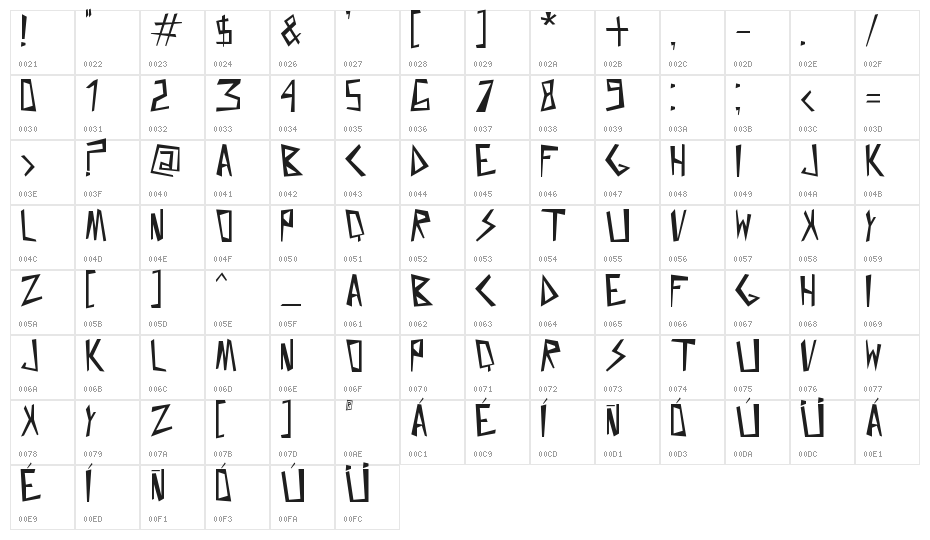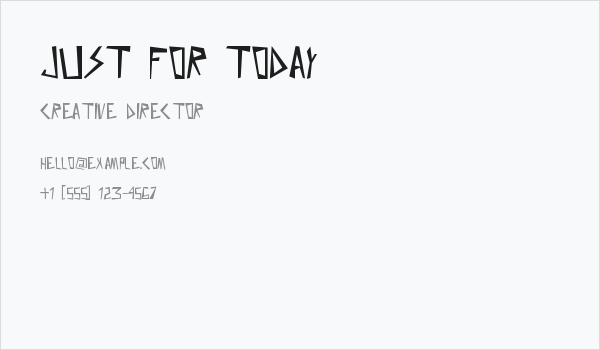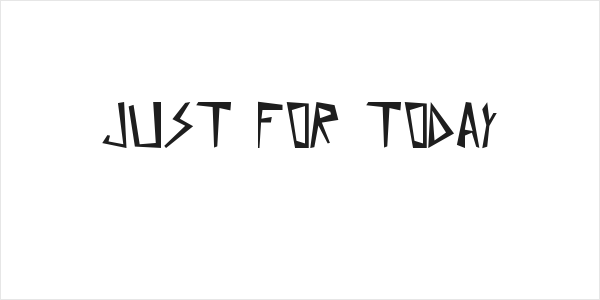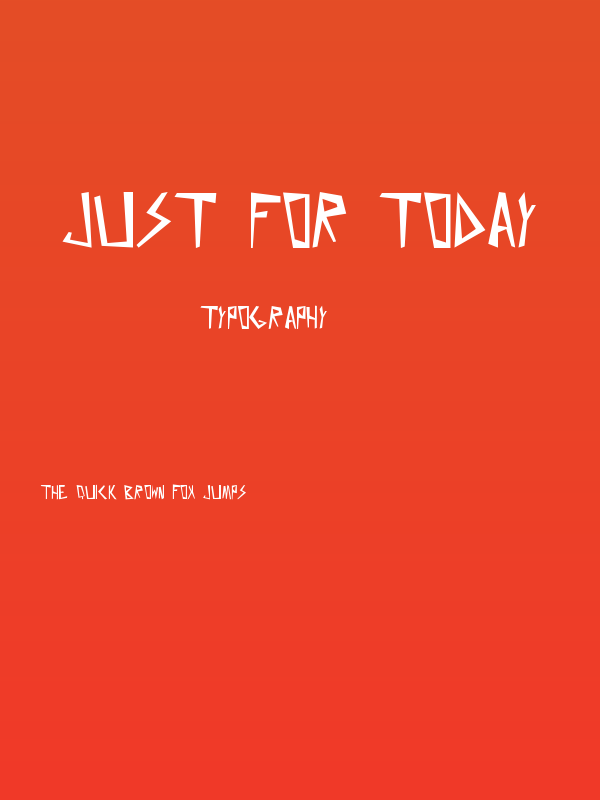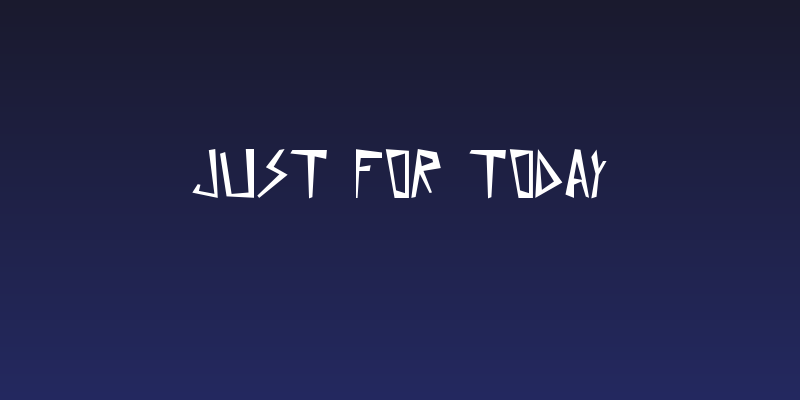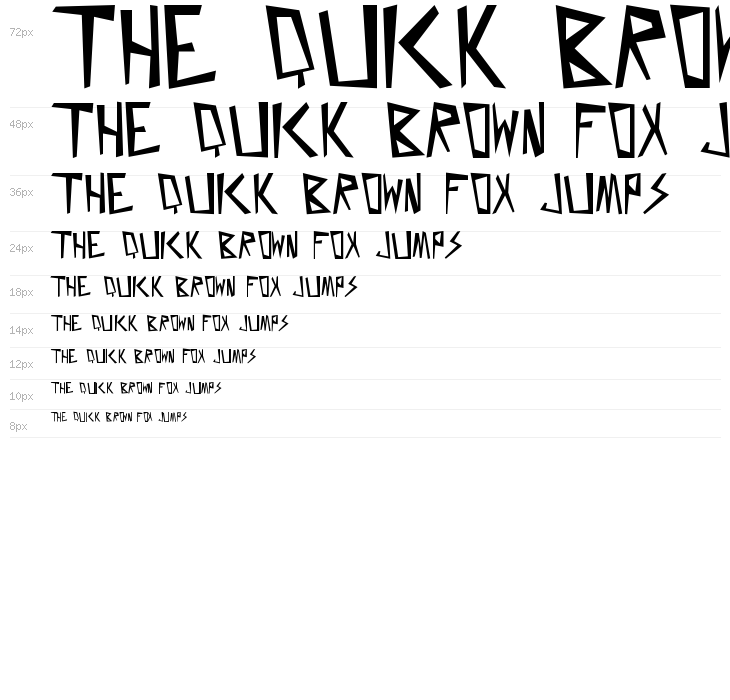
Just for today Font
Just for today Description
This font features a bold and angular design with a distinctly modern and edgy appearance. The characters are sharply defined with exaggerated angles and varying stroke widths, creating a dynamic and energetic feel. The uppercase letters are particularly striking, with a sense of movement and asymmetry that adds to the font's unique character. The numbers and special characters maintain this bold style, ensuring consistency across all glyphs. This font is ideal for projects that require a strong visual impact and a contemporary aesthetic.
| Proposed Projects | Ideal for posters, album covers, branding, and any project needing a bold, modern look. |